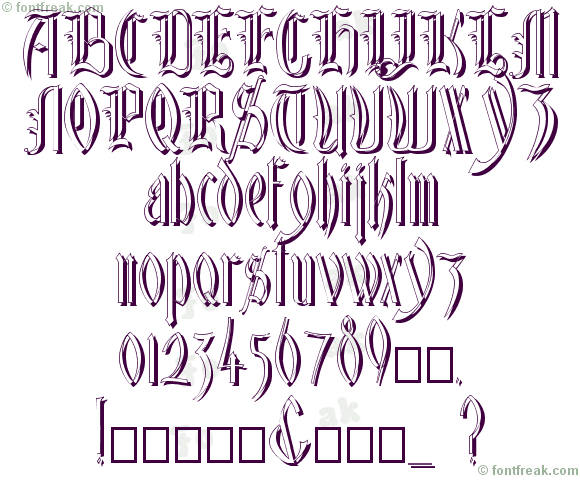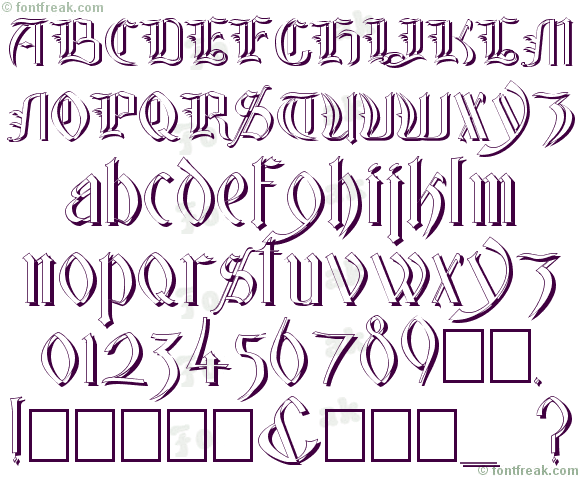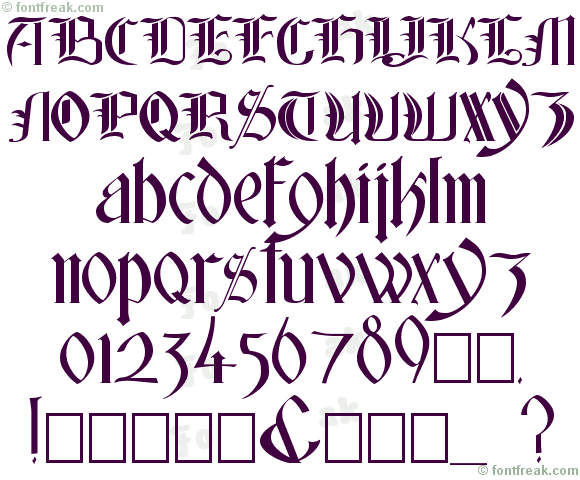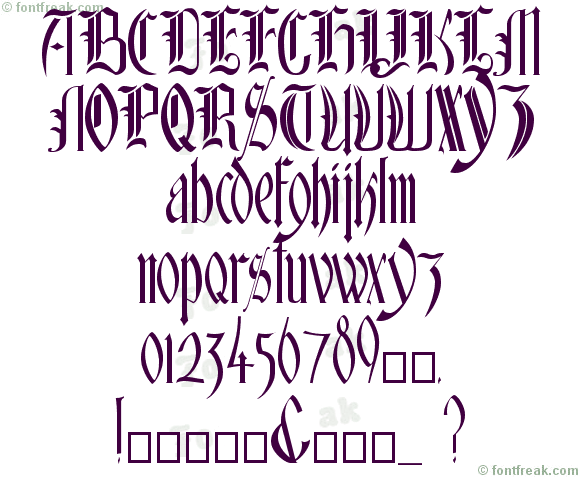
Glastonbury Wide
Glastonbury
Glastonbury Wide Shadow
Glastonbury Shadow
About Glastonbury
Glastonbury is a captivating display font designed by Paul Lloyd, classified as a decorative typeface that exudes a unique charm. This font is characterized by its bold stroke weight and striking contrast, which create a visually immersive experience. The letters feature a distinctive shadow effect that adds depth and dimension, while the wide letterforms provide ample spacing, ensuring clarity even at larger sizes. The intricate design elements, including sharp angles and elegant curves, make Glastonbury an eye-catching choice for various applications.
This font is particularly well-suited for creative endeavors such as movie posters, where its dramatic flair can enhance the visual narrative. Additionally, it works beautifully for concert flyers, giving an artistic touch that resonates with music lovers. Glastonbury is also ideal for restaurant menus, especially those looking to convey a vintage or eclectic vibe. Other excellent use cases include artwork for festivals and promotional materials for events, where its distinctive style can draw attention and captivate audiences.
What sets Glastonbury apart is its ability to infuse creativity and personality into any design. Its combination of elegance and boldness makes it a versatile choice, ensuring that it leaves a lasting impression in a variety of contexts. Whether for professional or personal projects, Glastonbury is sure to elevate your typography game.